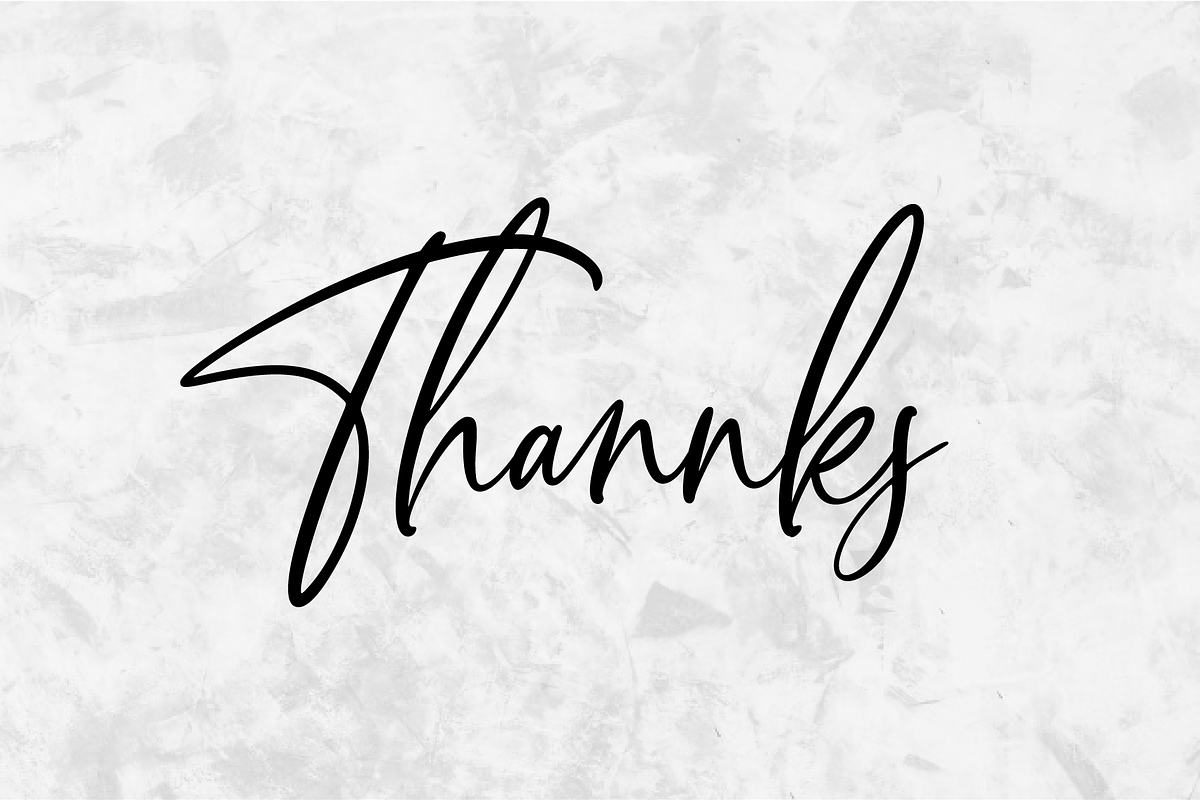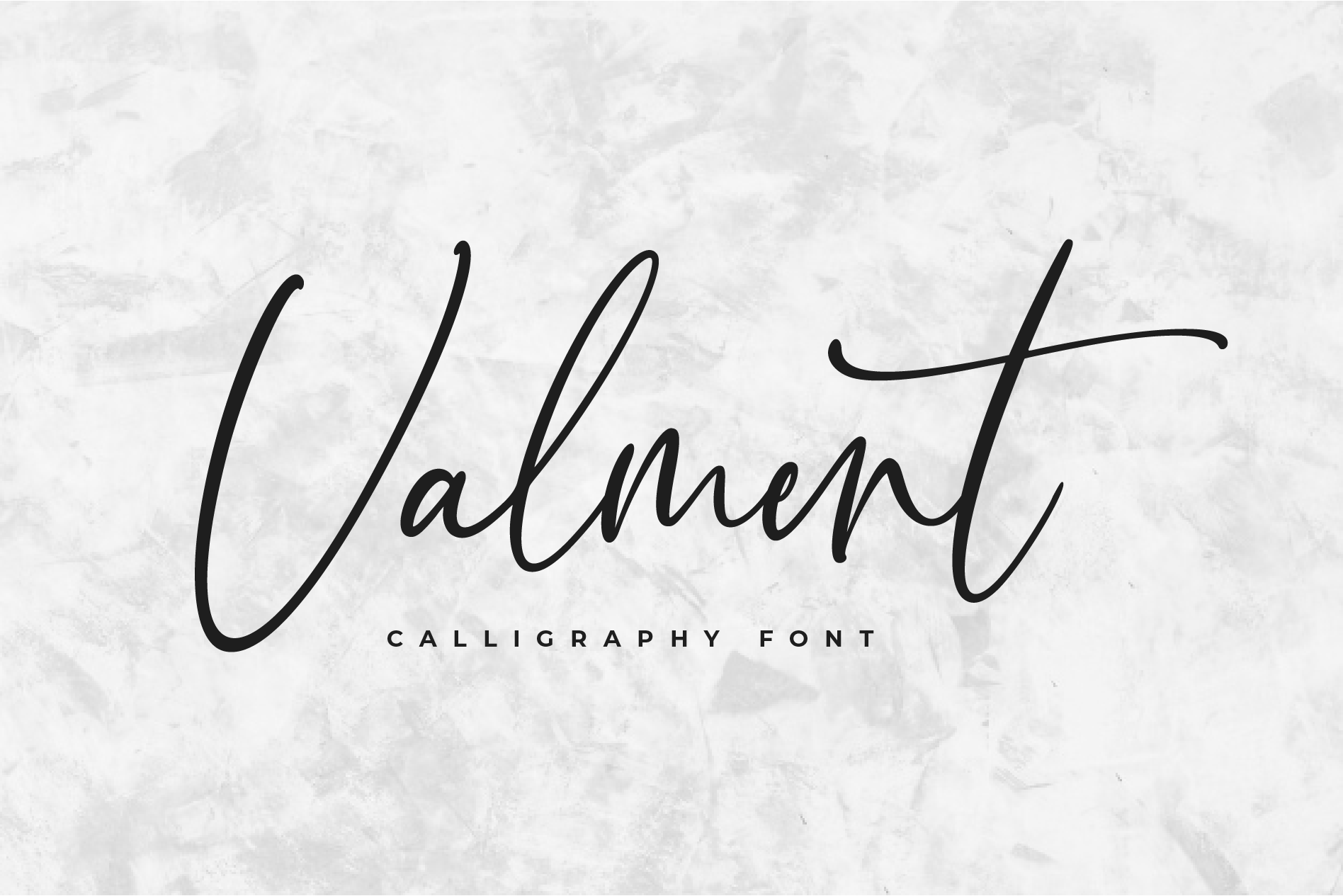
Valment Calligraphy Font
let me show you my newest font called valment. this is modern calligraphy font that perfect for any use,.this font come with 72 beautiful ligature and very perfect for your design project and many other. let's make world more special with valment.